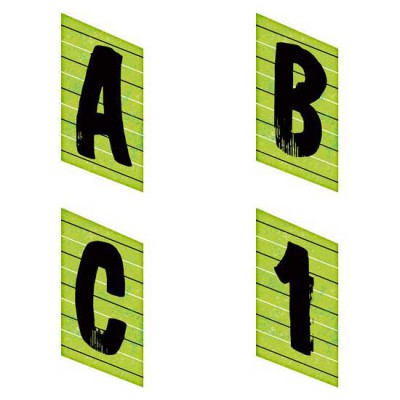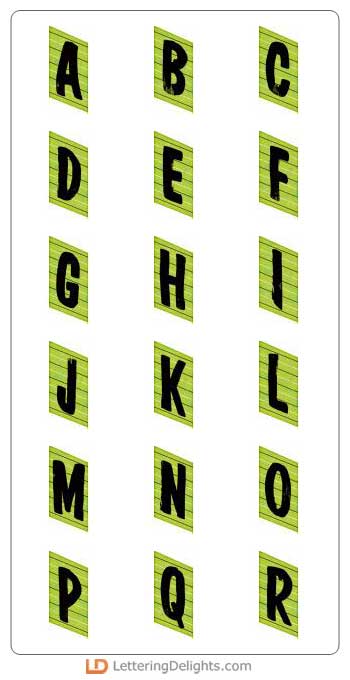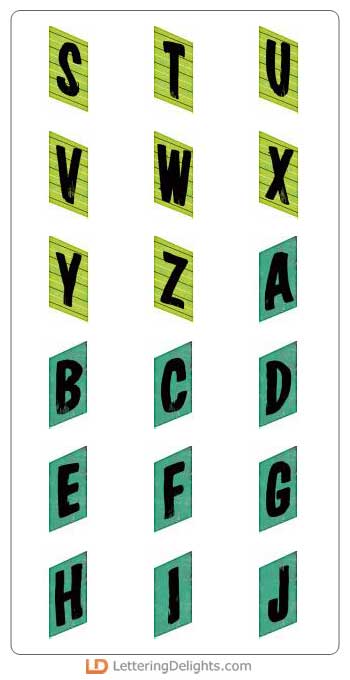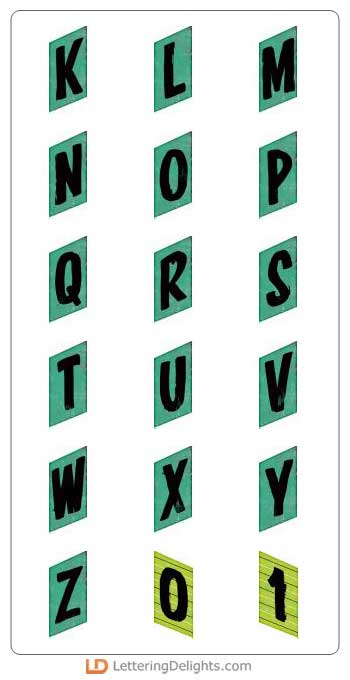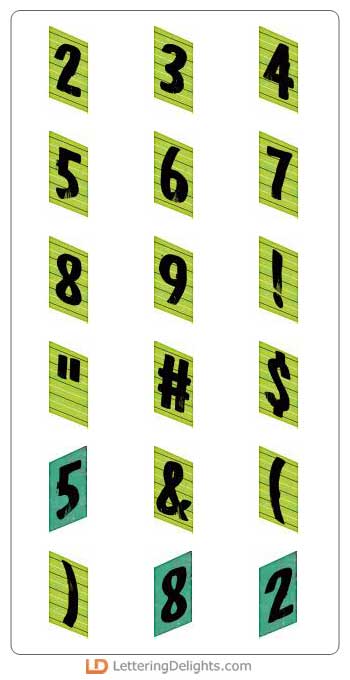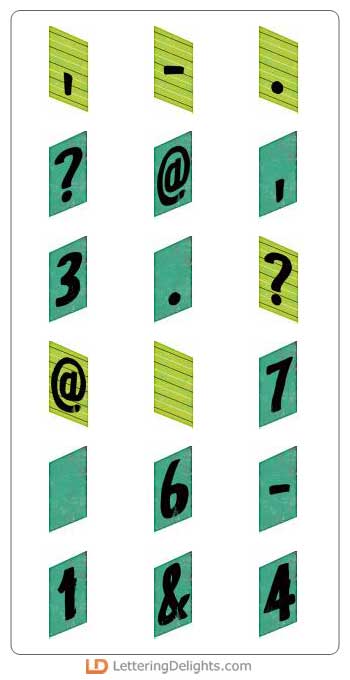
What a fun, retro alphabet this is! We've provided the letters, numbers and characters in each of the colors and in both orientations so that you can create any text combination you might need. Notice there are even 'spaces' provided so that your title can continue uninterrupted!